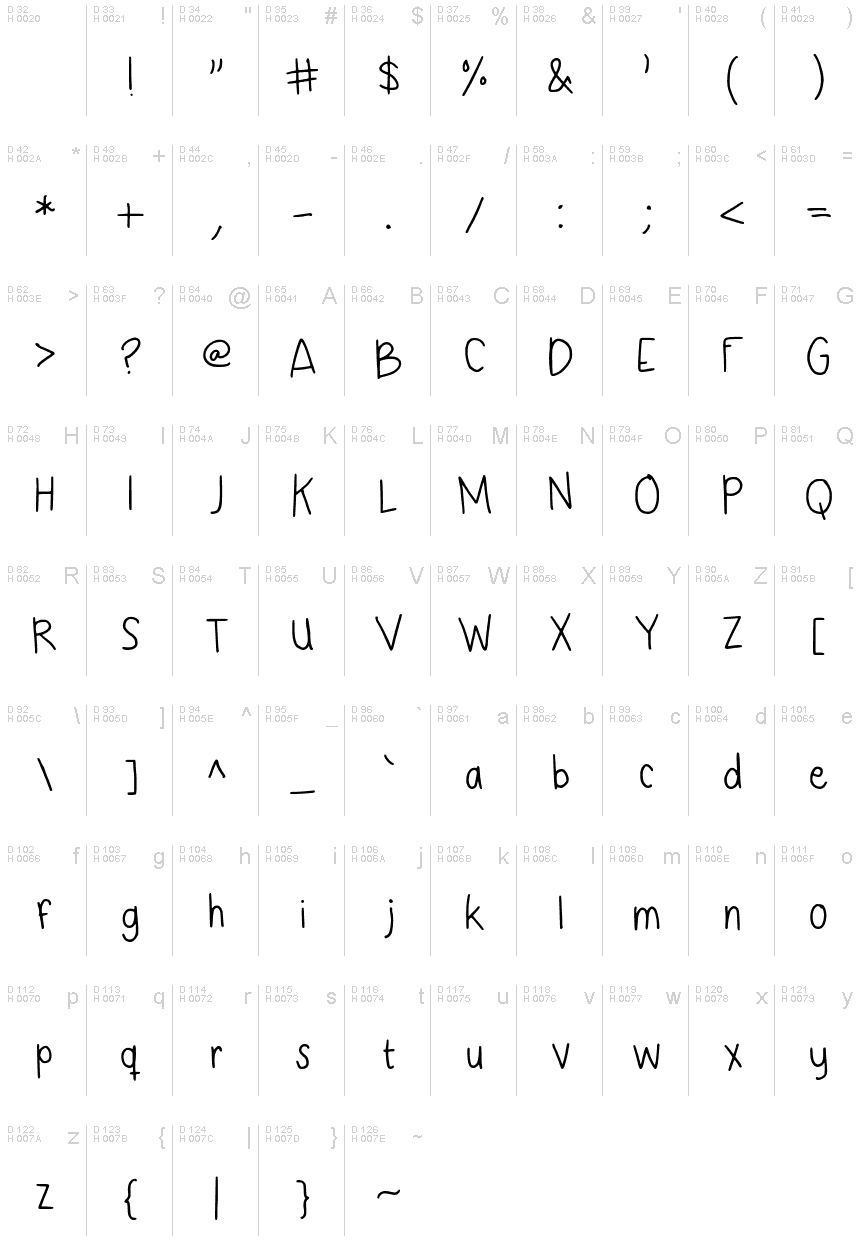
Never Was A Cloudy Day Regular
Never Was A Cloudy Day is a casual handwritten font designed by Paula M. Its light weight makes it suitable for projects ranging from greeting cards to home decor. It adds a personalized touch to any project with its natural, hand-drawn feel.